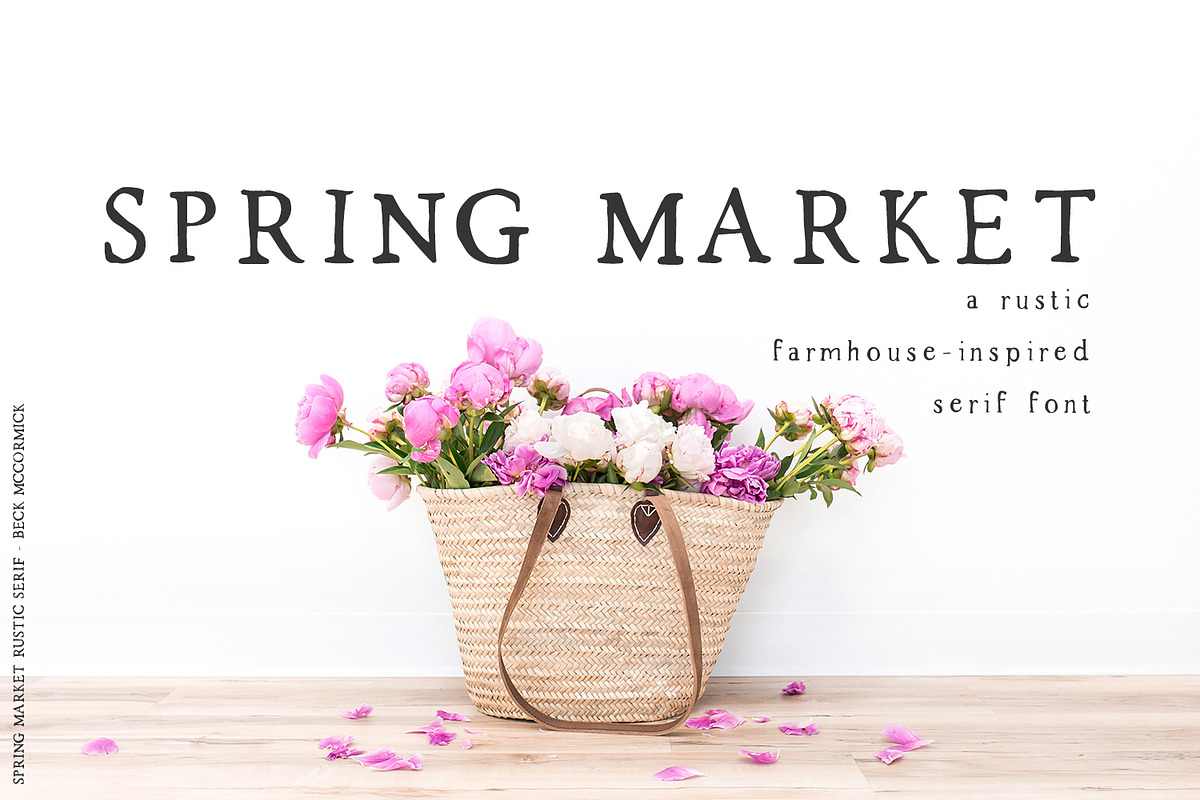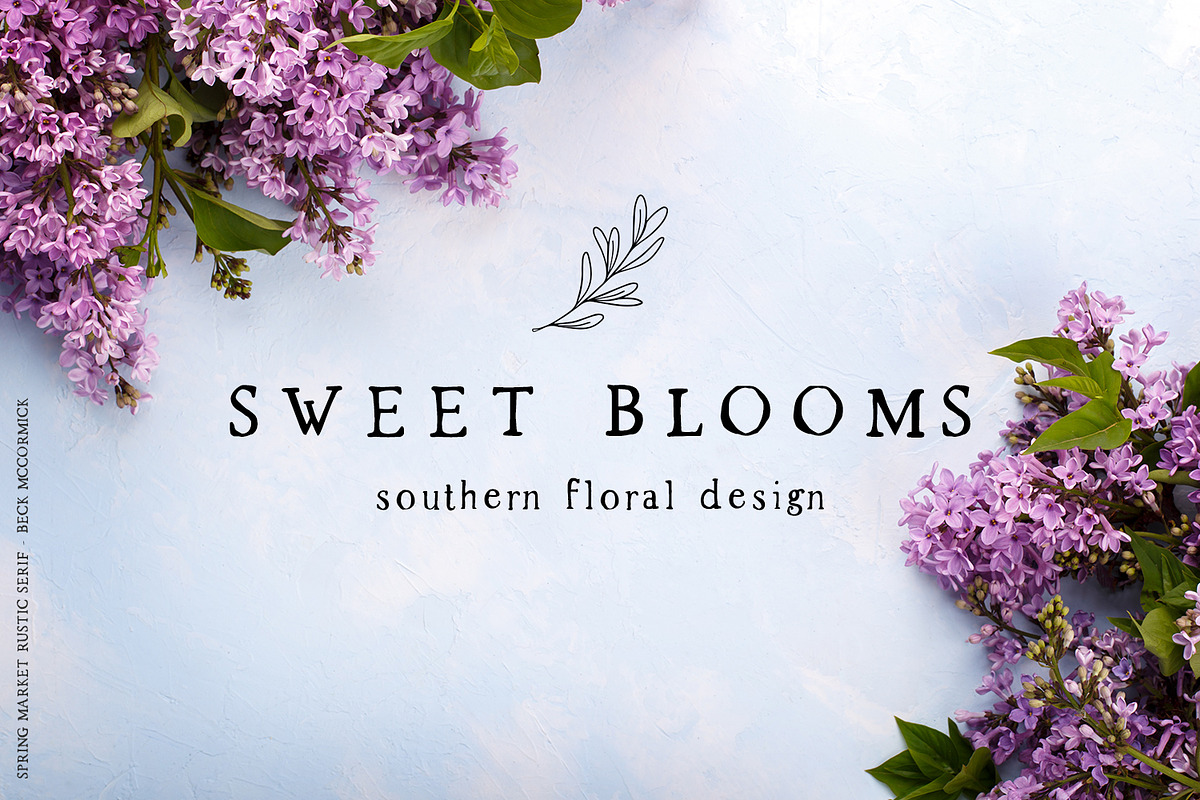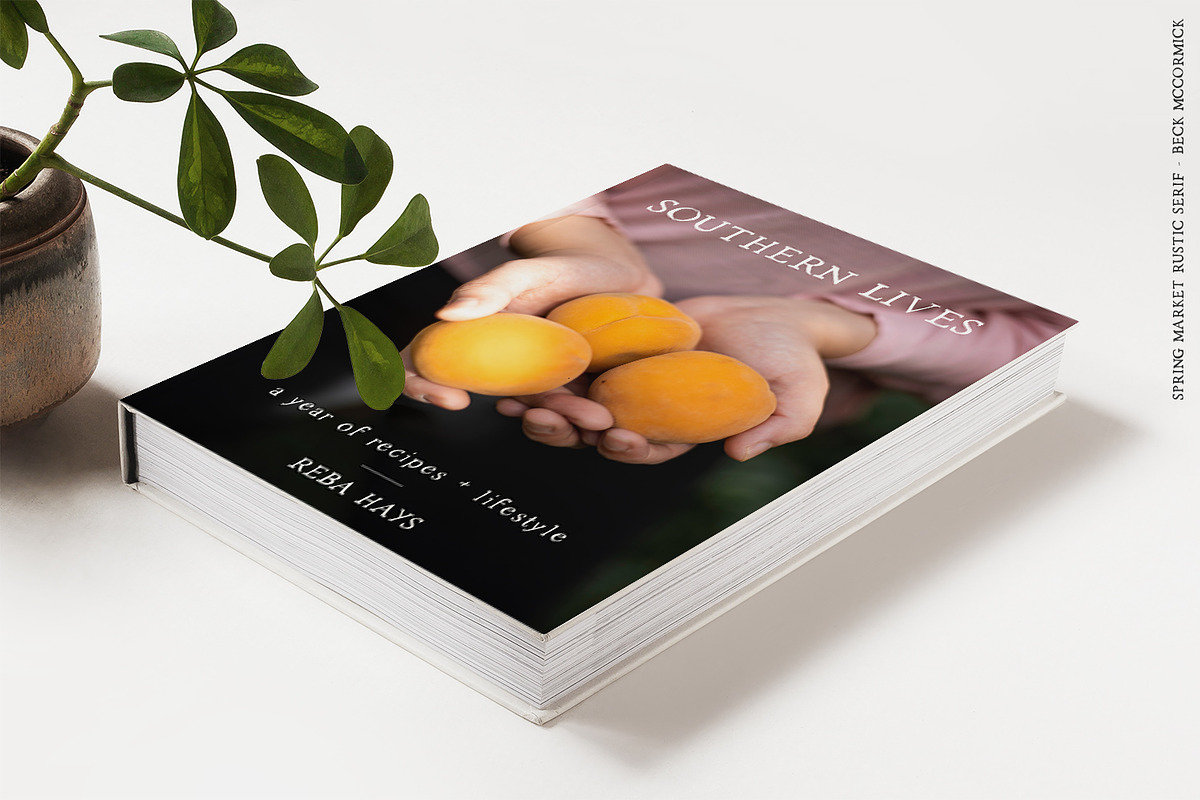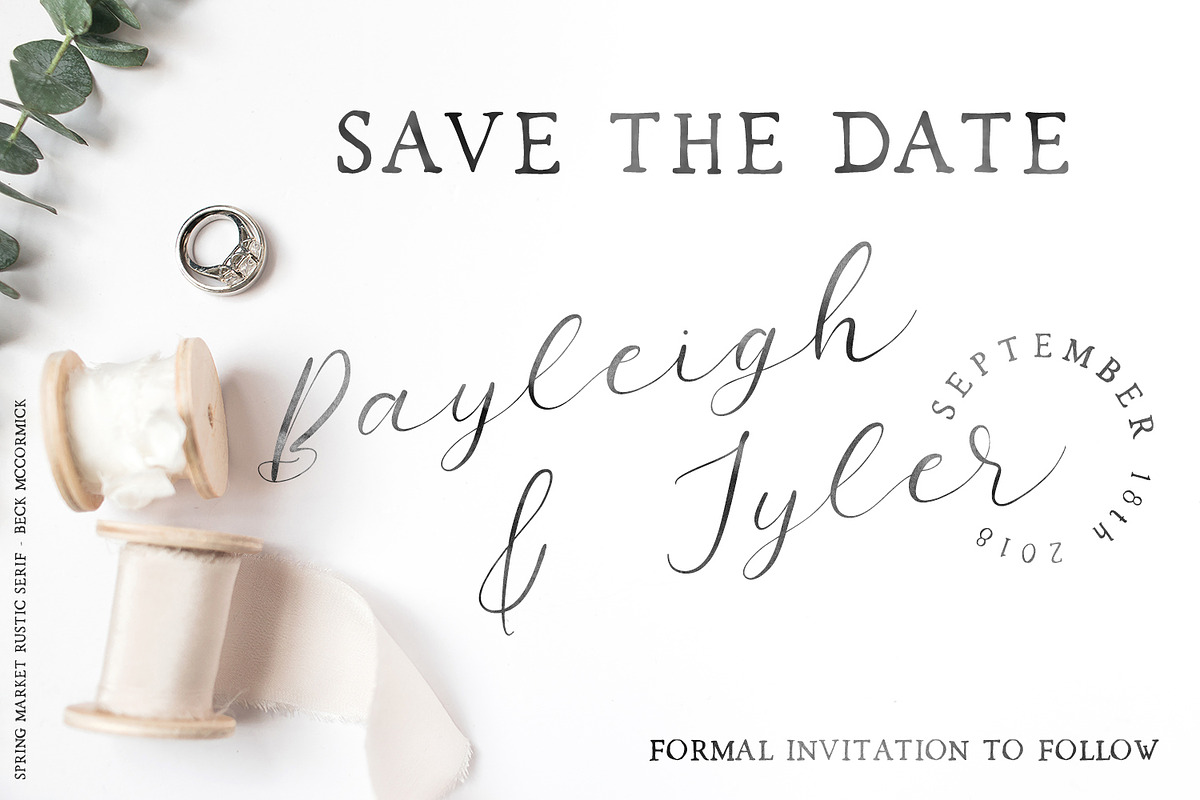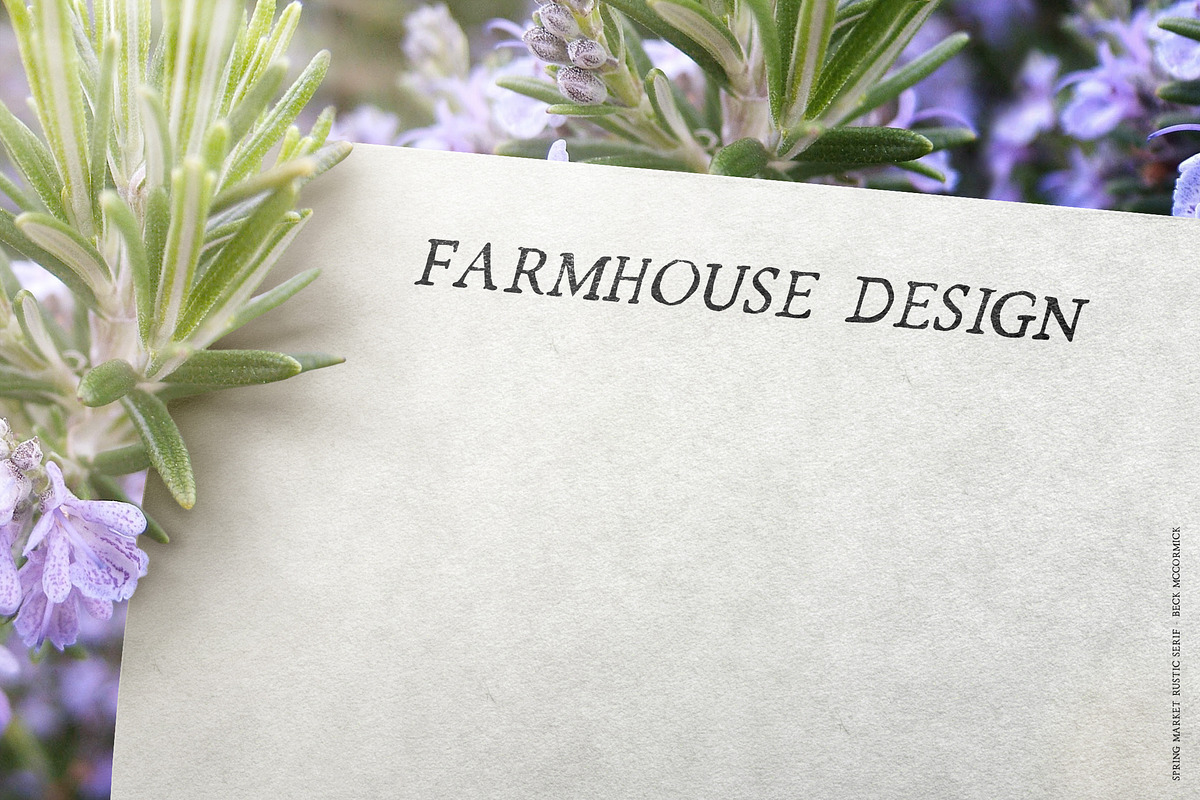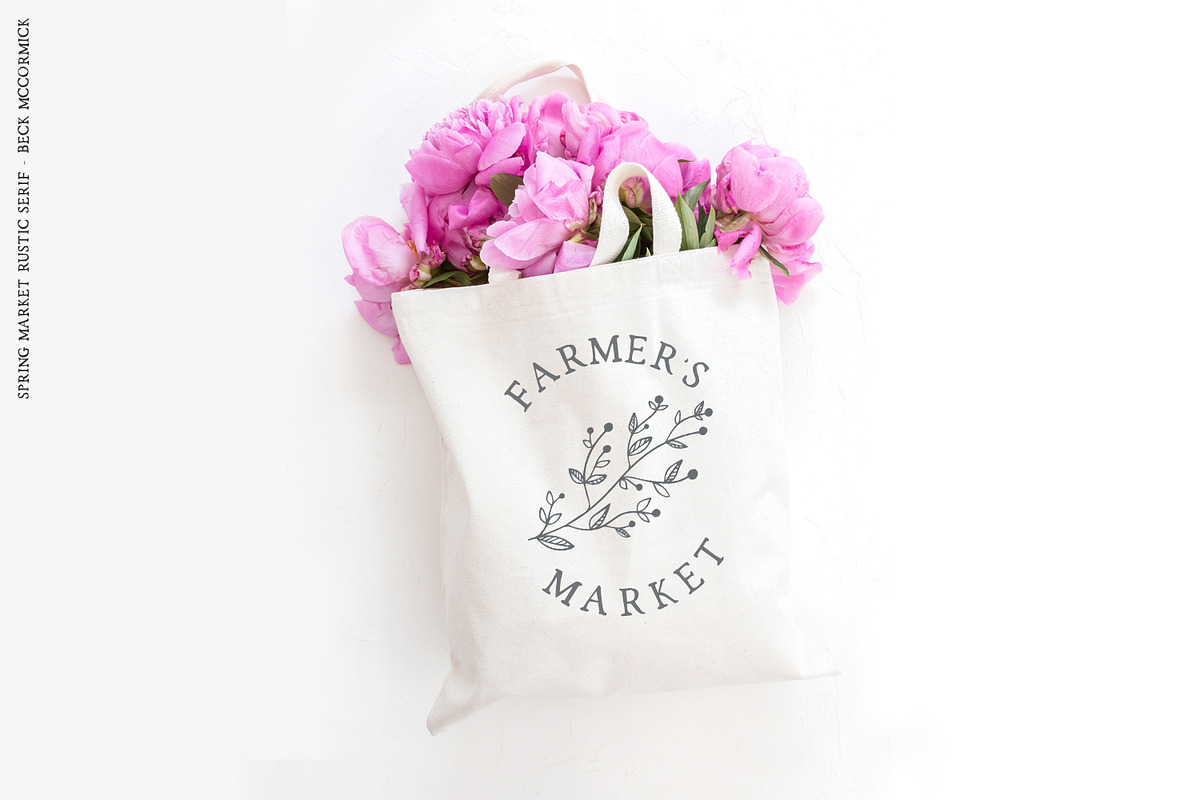
Spring Market - Rustic Font
Spring Market - Rustic Font by Beck McCormick is a font selected for branding, posters, packaging, typography.
Spring Market - Rustic Font by Beck McCormick fits naturally into Branding, posters, packaging, typography.